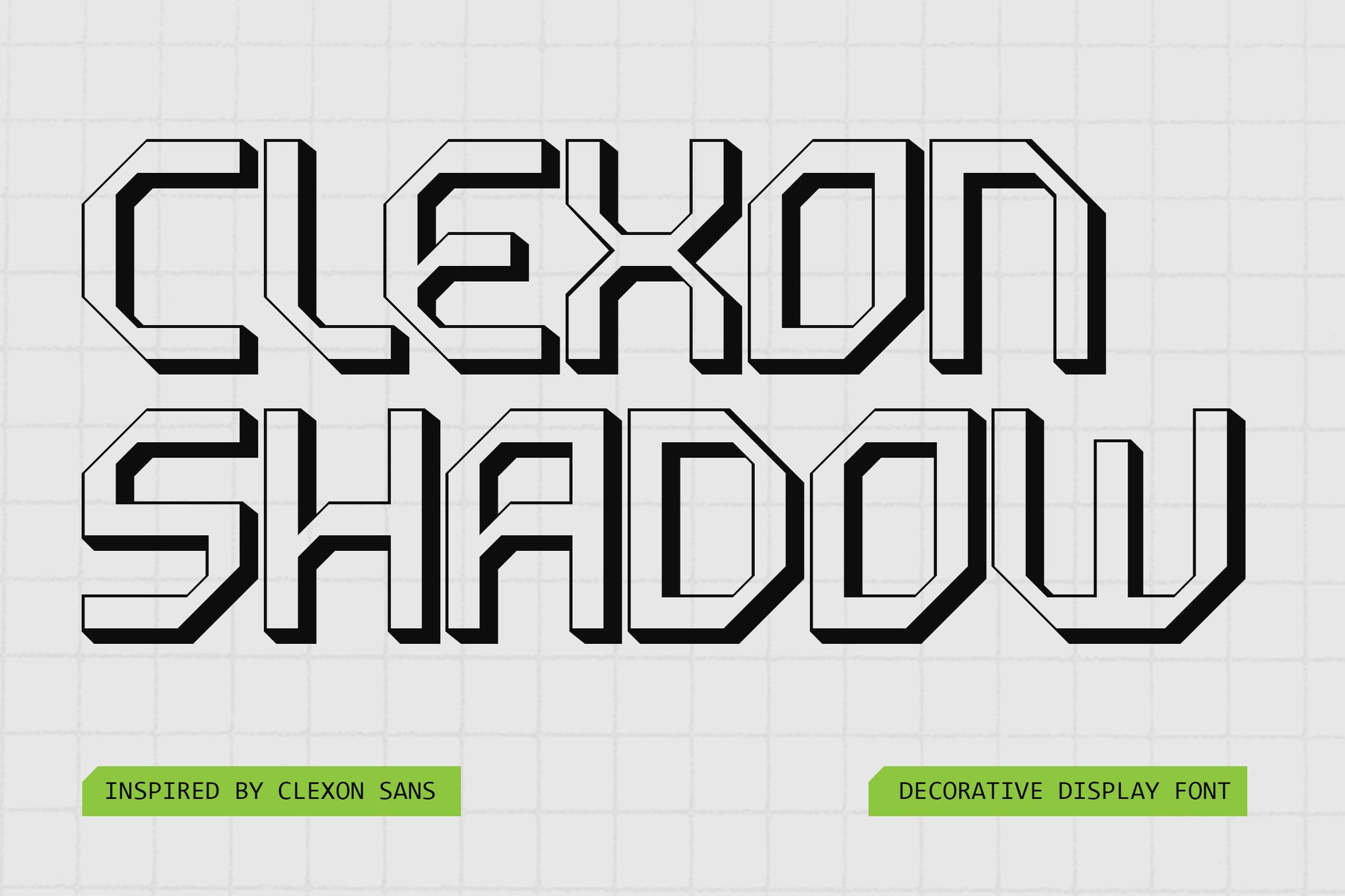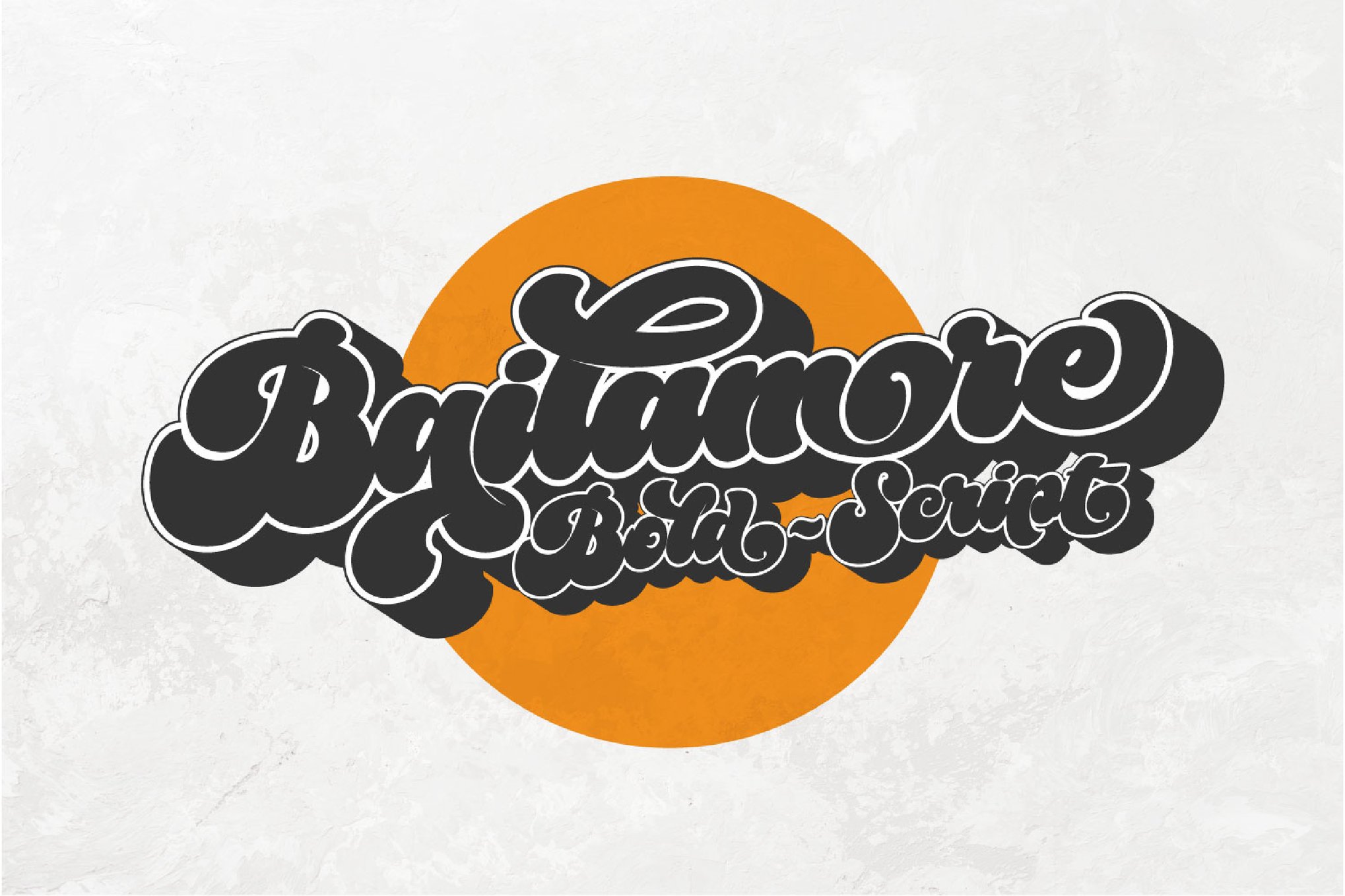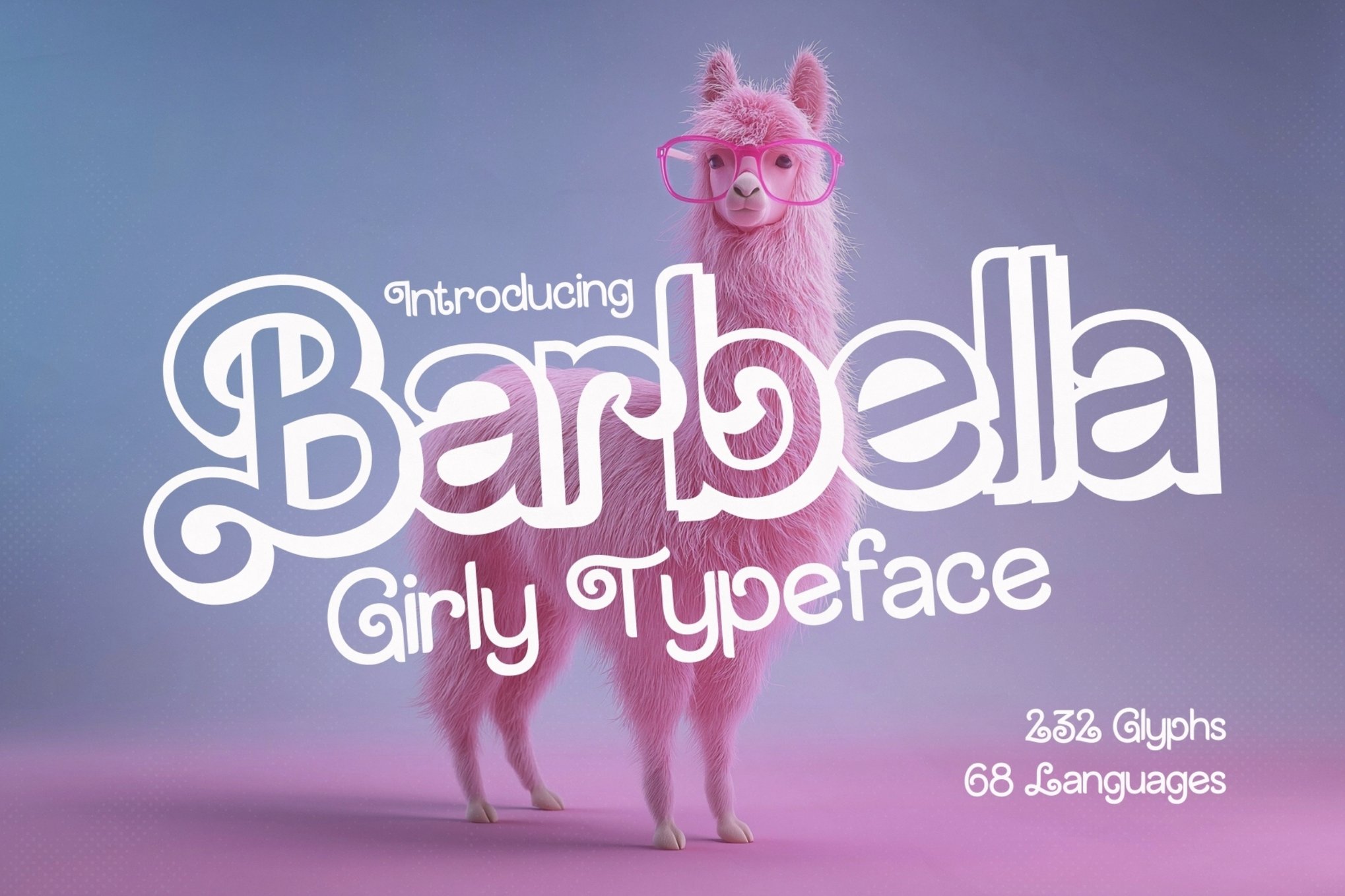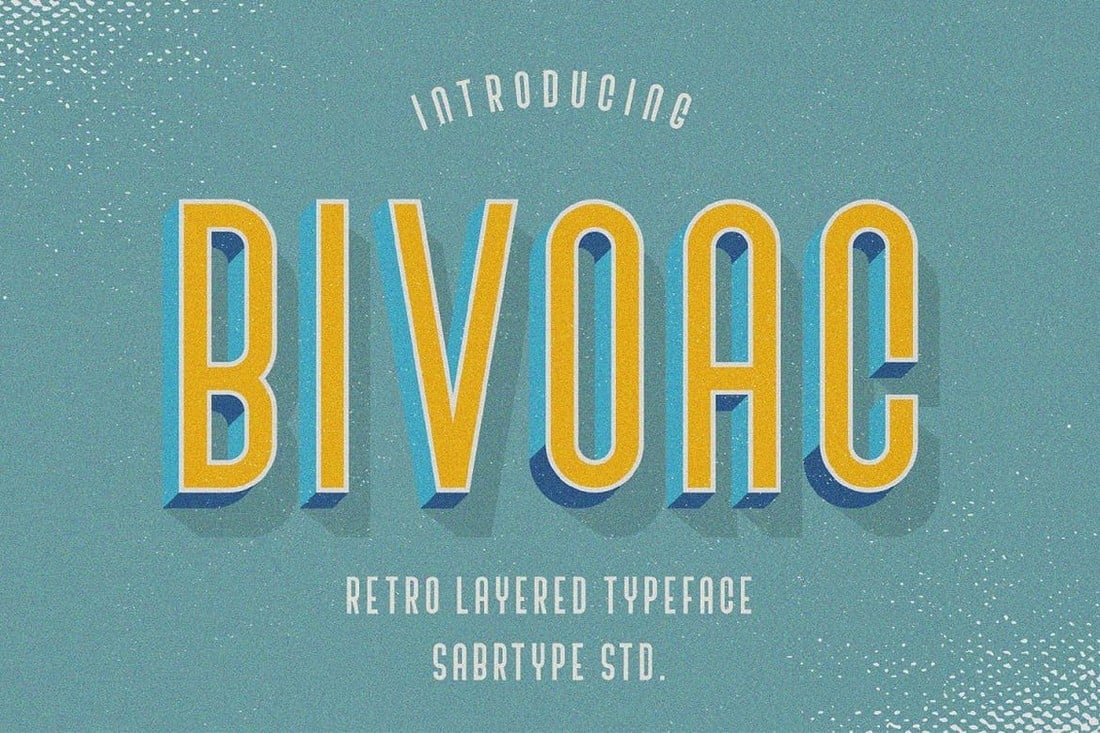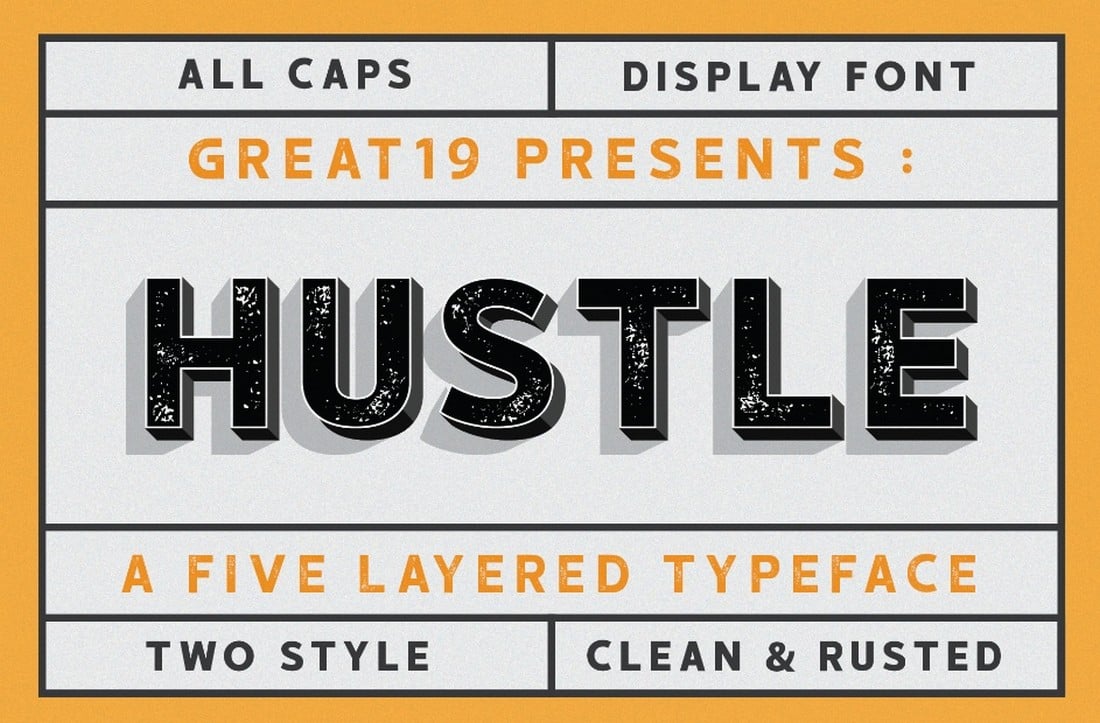
Adding a drop-shadow to your text in Photoshop is a great way to highlight titles and make a cool text effect.
What if there’s a font that already has a shadow effect and you can use in any software? Well, that’s exactly what a shadow font is all about.
Shadow fonts are a special type of font that comes with a built-in shadow effect. Sometimes, this effect even gives a cool 3D-like look to the font as well.
In this collection, we are showing you some of the best fonts with shadow lettering that have various styles of designs and purposes. Have a look.
Clexon Shadow – Shadow Geometric Font
Clexon Shadow is a geometric font with a retro-modern flair, enhanced by a subtle shadow effect that adds depth and dynamism. Perfect for standout branding and headlines, it features crisp lines and flowing curves that draw the eye. The font includes standard letters, numbers, symbols, and multilingual support, available in OTF and TTF formats.
Bailamore – Bold Retro Shadow Font
Bailamore is a retro bold shadow font that captures the essence of vintage lettering with a contemporary twist. Featuring 159 ligatures and 85 alternates, it provides an artistic touch, making you feel like a lettering artist. It includes regular, outline, and shadow versions, offering a versatile 3D effect when combined.
Neu Marbelous – Classic Shadow Font
Neu Marbelous is a monoline script font that brings retro flair to your projects. With three styles—Solid, Stripes, and Shadow—this font is perfect for logos, titles, and labels. Available in otf, ttf, eot, and woff formats, Neu Marbelous effortlessly enhances any creative project.
Barbella – Girly Shadow Font
Barbella is perfect for dazzling girly design projects. With chic curves and a radiant personality, this font adds a splash of glamour to fashion branding, event invites, and social media graphics. It includes standard glyphs and multilingual support as well.
Spy Royal – Shadow Display Font
Spy Royal is a unique script typeface that blends script and streamlined design, inspired by a 1954 Japan Airlines advertisement. Available in six styles, including shadow-lines and 3D-shadow, this font is perfect for vintage themes like cars, racing, and retro dining. It features alternate characters, ligatures, and West European diacritics.
Geist – Creative Shadow Font
Geist is a captivating sans-serif shadow font that comes in eight unique styles. Perfect for a bold design statement, use it in larger sizes to emphasize the shadow, vintage, and inline features. Ideal for those who want to bring an edgy element to their project, Geist even includes uppercase letters and numbers for maximum versatility.
Mupen – Bold & Fun Display Font
Mupen is a bold and playful display font, draws inspiration from neobrutalism styles. This striking typeface is perfect for enhancing your typographic designs on a wide array of mediums like posters, book covers, signage, apps, games, and much more. Available in regular, outline, and shadow formats, it includes uppercase, lowercase, numerals, and more.
Angel Club – Stylish Shadow Font
Angel Club is a striking shadow font with a retro twist. Bundling three styles – Regular, Slanted and Shadow, it’s infused with a nineties vibe that will seamlessly add a retro touch to any project. Offering uppercase and lowercase letters, numbers, punctuation, and multilingual support, this font is available in OTF and TTF formats.
Rolimake – Shadow Display Font
Rolimake is a dynamic typeface that features a notable shadow effect, adding depth to headlines and branding. Its bold yet artistic style offers a unique touch to designs, capturing attention across both print and digital formats. It includes uppercase, lowercase, symbols, punctuation, and numerals.
Typis – Layered Shadow Font
Typis Sans is a layered shadow font inspired by retro sans serif typography. Its geometric, slim, and condensed shape delivers an authentic vintage feel. It comes in Regular and Shadow versions, in both TTF and WOFF formats, and includes uppercase, lowercase, numerals, and punctuation. Combining both allows for an easy creation of a shadow effect.
Arkland – Monoline + Shadow Fonts
Arkland is a versatile script font that brings together vintage, modern, and retro aesthetics, inspired by dynamic culture and signage designs. Great for a range of creative projects, this font can be used to create logos, posters, invitations, packaging, apparel designs and so much more.
Biglett – Shadow Display Font
Biglett is a fun and creative shadow font that’s perfect for crafting bold titles. It’s also great for branding design and creative product packaging. The font includes uppercase and lowercase letters with ligatures, alternates, and symbols.
Airbag – Serif Shadow Font
Airbag is a simple, minimal shadow typeface incorporating over 300 glyphs, including upper/lowercase letters, numbers, punctuation, and Western and Central European characters. Although it doesn’t work well as a web font, it shines in printed and on-screen material. The Airbag typeface is supplied in both ttf and otf formats.
Howli – Layered Shadow Font
Howli is a playful, layered shadow font offering a charming touch to your designs. Comprising of Inline, Hatch, Base, and Shadow, this font family explores cute aesthetics through three distinctive layers: base, shadow, and either inline or hatch. Perfectly suited for various creative projects, Howli makes your text pop with its unique, layered effect.
Dandy Jokes – Cartoon Shadow Font
Dandy Jokes is a unique retro hipster style typeface, inspired by 60s to 80s retro cartoon movies and superhero styles. It offers a blend of bold and sans serif hipster elements that comes in both uppercase and lowercase, along with numerals, punctuations, symbols and multilingual support. Available in both OTF and TTF formats.
Sevastian – Layered Shadow Font
Sevastian is one of the best shadow fonts you’ll find on our list. It features a very unique shadow effect that creates a realistic 3D effect. Sebastian is a layered font and it comes in multiple styles of shadow effects, including inner shadow, extrude, and more. You can do many different experiments with this font.
Black Romance – Vintage Blackletter Shadow Font
Vintage fonts tend to add a certain elegance to any design you create. With this font, however, you get to add a shadow lettering effect alongside that elegant vintage look. It’s a stylish blackletter font that also includes a shadow font variant in addition to a regular font. It’s the perfect type of font for crafting product labels.
Butter Layer – Fun Fonts With Shadow
Looking to craft a fun title for a kids-themed banner or an entertaining poster? Then be sure to download this font. Butter Layer font has a fun letter design that makes it a great choice for crafting casual and kid-friendly titles. It’s also suitable for greeting cards, YouTube thumbnails, and flyers.
Bivoac – Layered Shadow Font
Vivoac is another layered shadow font for the fans of retro designs. The font comes with a classic retro lettering design featuring a shadow effect. In addition to the shadow font, you also get regular, outline, and dark style fonts with the collection. It also has extensive multilingual support as well.
Burford Drop Shadow Font
Burford is one of the most popular fonts among designers. Burford is a big font family that includes various types of designs and styles. This particular version of the font comes with a drop shadow effect that creates a cool look for your big poster and flyer titles. It also includes a few alternate characters.
Berg – Free Layered Shadow Font Family
Berg is a big family for layered fonts that comes with 7 different font files. There are regular, shadow, extrude, and inline fonts in this pack. The best part is that the entire font family is free to use with personal and commercial projects.
Shadow Stripes – Free Shadow Font
Just as the name suggests, this font has a simple vintage design featuring a striped shadow lettering effect. It’s perfect for headings, poster titles, and even product packaging designs. You can use it for free with personal projects.
Laguna – Regular & Shadow Font Duo
This font has all the right elements of a perfect title font. It has big and blocky characters as well as a clean-cut design. As a bonus, there’s a shadow effect as well. What more could you ask for a great title font. Use it to design poster titles, flyer headings, and even social media posts.
Modster – Script Shadow Font
We haven’t seen a better script font that rocks a shadow effect than this one. It’s rare for scripts font to come with a shadow effect since it’s difficult to pull it off but this font does it perfectly. The font comes with lots of alternates and styles, including an extra shadow style.
Carter – Layered Shadow Font
Carter is a vintage-style font that comes with a lettering design inspired by old-school signage. The font is available in multiple styles including regular, shadow, black shadow, and drop. Each version has its own shadow effects. You can use them to craft all kinds of headings and titles.
TF Continental – Display Shadow Font
This is an elegant font that has a classic letter design that never goes out of style. It will remind you of the signage for luxury hotels or labels for high-end products. The font lets you choose from many different styles, including shadow, outline shadow, and 3D style fonts. There are plenty of things you can do with this font family.
Burford Rustic Shadow Two
Another shadow lettering font from the Burford font family. The unique textured shadow effect in this font grabbed our attention by surprise. It’s quite different from the rest of the fonts in our collection. You can find another version of this Burford shadow font here.
Bailamore – Free Script Shadow Font
Bailmore is a thick script font that also has a shadow effect. This font comes with creative and curvy letters that will give an extra cool look to your text. It’s especially suitable for greeting cards and T-shirt designs.
Seize – Free Shadow Font
This free font has a very clean and minimalist letter design. It also features a simple outline shadow effect as well. The font looks great on business cards, posters, and flyers. You can use it for free with personal projects.
Morro – Geometric Shadow Font
Morro is a unique font that consists of letters made of geometric shapes. This font is most useful for logo design and crafting stylish titles for posters and T-shirts. The font comes in regular, shadow, and outline styles. Along with a set of alternate characters that have different styles of letter designs.
Bouchers – Retro Layered Shadow Font
Bouchers is a retro layered font that looks a lot like the typefaces you see on vintage drink bottle labels. The font includes two shadow-style fonts and an additional script font that goes quite well together. There are also lots of alternates, swashes, and ligatures to choose from as well.
The Rupture 3 – Brush Script Shadow Font
This is a very creative brush script font that has a beautiful flowing letter design. It includes two shadow font versions that are perfect for designing greeting cards and invitations. This font also comes with glyphs and stylistic alternates.
Geronimo – Creative Shadow Font
Geronimo has 3 styles of fonts, a regular font and two styles of shadow fonts. One of the shadow fonts creates an inward shadow that gives this font a 3D-like look and feel. This makes this font a great choice for everything from T-shirt designs to logos and branding designs.
TRIXIE – Futuristic Shadow Font
Trixie is a very stylish font with a set of futuristic characters. Each letter in this font has a unique design that will make your designs stand out. It’s especially ideal for making event banners, posters, and brochures. The font includes multiple styles of fonts, including a shadow font.
Juiceline – Free Vintage Shadow Font
Juiceline is a bold vintage script font that comes with a shadow effect. This font is most suitable for social media posts and custom T-shirt prints. It’s free for personal use.
HUSTLE – Free Layered Shadow Font
Another free font you can use to design product labels, business cards, posters, and more. This font includes 6 different styles of fonts, including shadow and rustic style fonts. They are all free to use with personal projects.
Astro – Cyberpunk Shadow Font
Astro is a creative font that features a set of letters inspired by cyberpunk designs. Each letter in this font has a unique textured design and it comes in multiple font styles, including extrude shadow and cable. This one is perfect for all your tech-themed graphic designs.
Michelangelo – Modern Shadow Font
This is a big family of fonts that has blocky letters and a stencil-like design. There are 15 styles of fonts in this font family, including shadow, outline, vintage, and grunge fonts. You’ll have plenty of choices for different projects with this font pack.